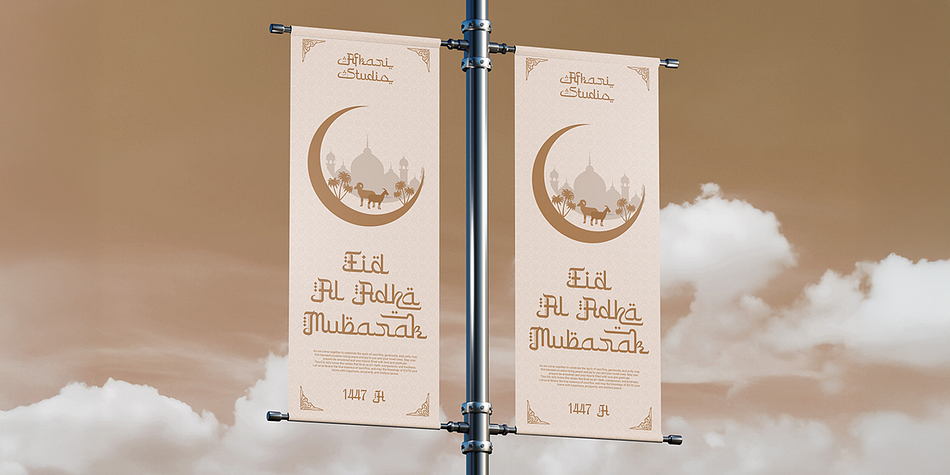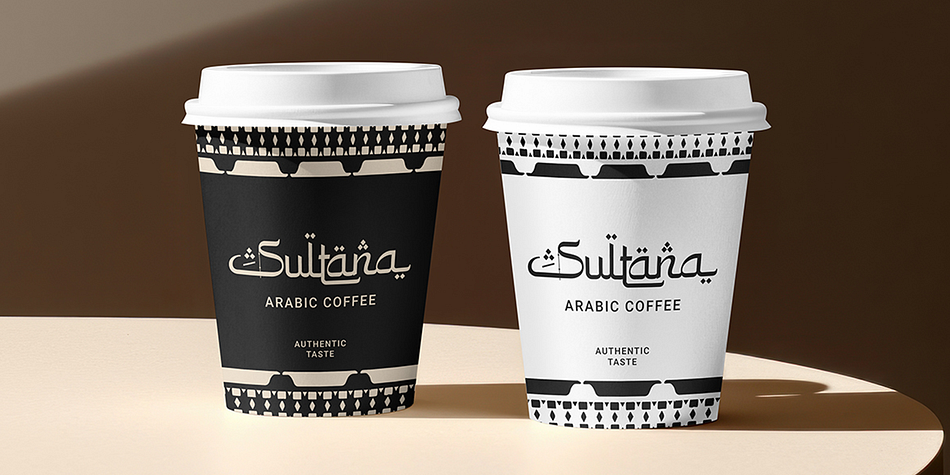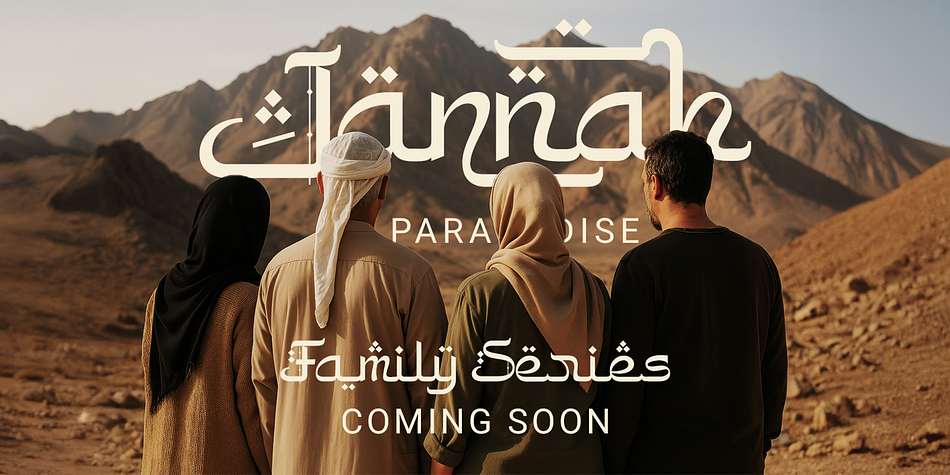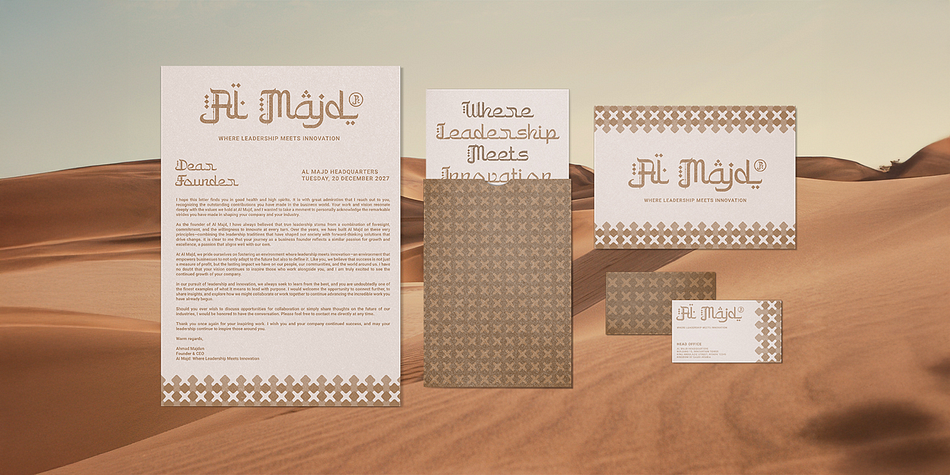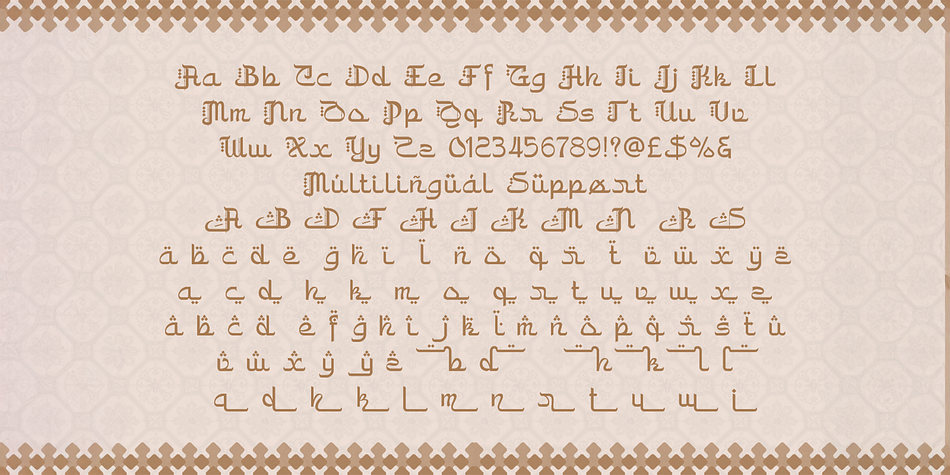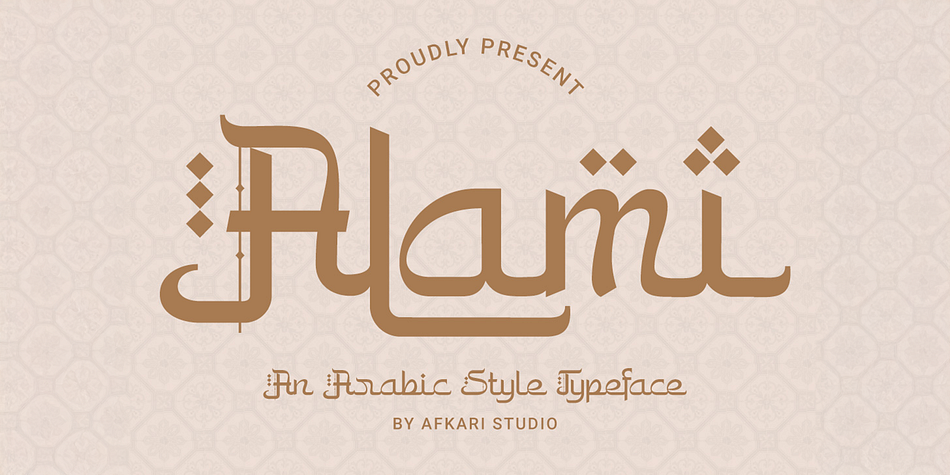
Alami
Alami is an exotic font family published by Afkari Studio.
Alami is a modern Arabic script typography that beautifully blends the classic charm of Arabic calligraphy with a sleek, contemporary touch. Designed for versatility and visual impact, this Arabic font style is perfect for designers seeking cultural depth with modern flair.
Whether you’re designing a halal brand, crafting visuals for Ramadan and Eid, or adding a cultural touch to your packaging or social media content — Alami helps your message feel authentic, warm, and full of character.